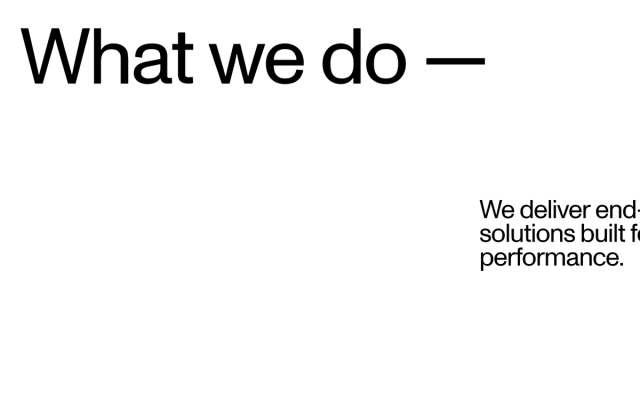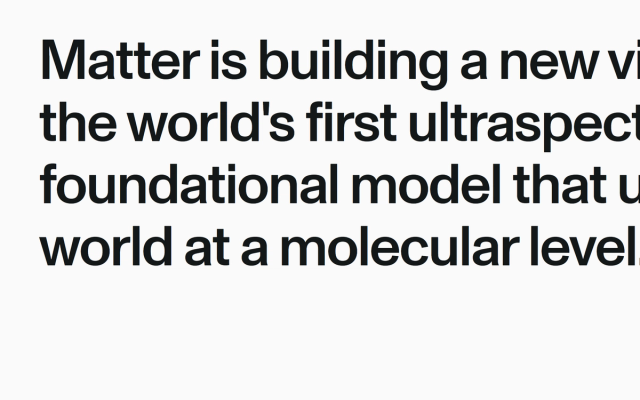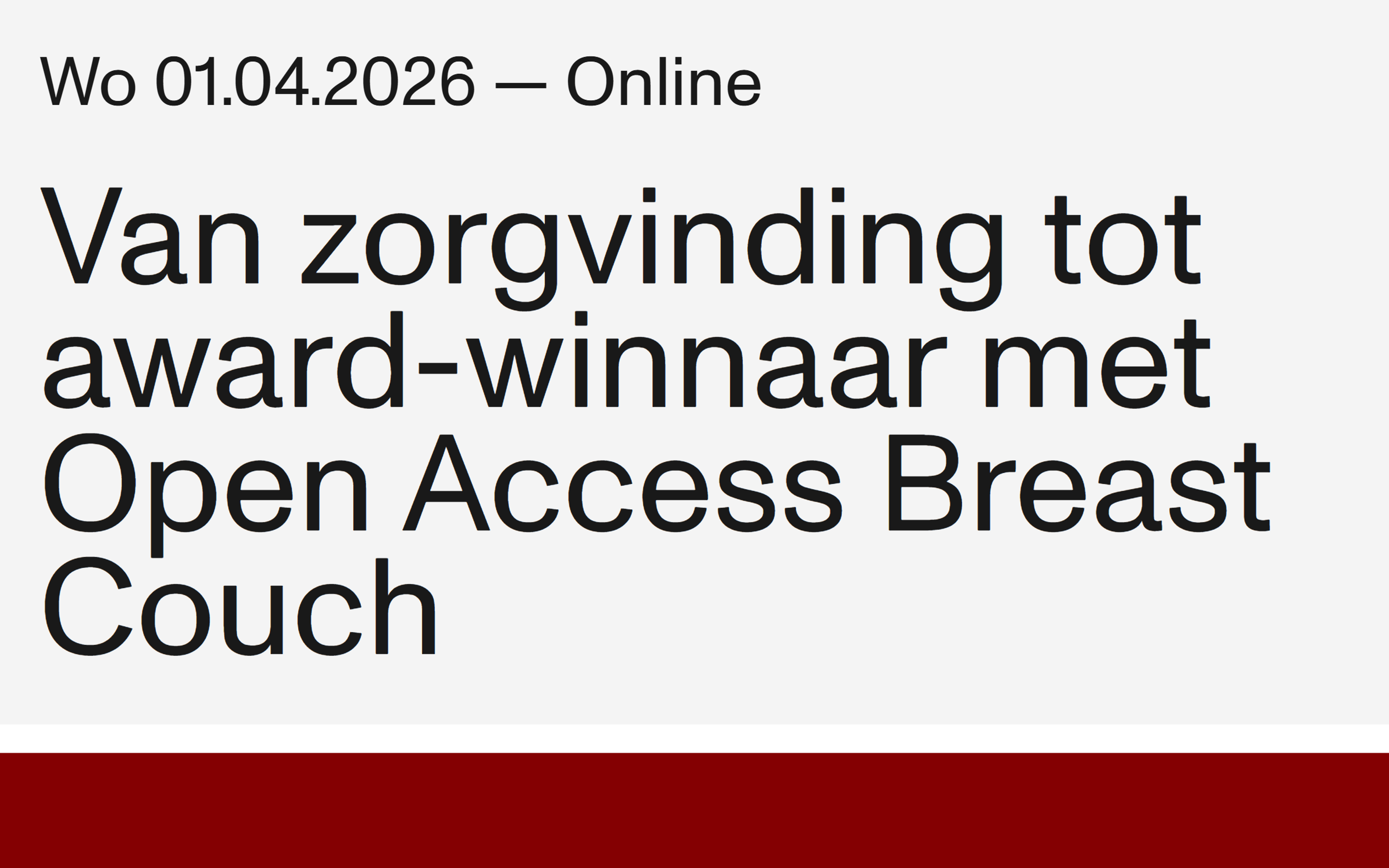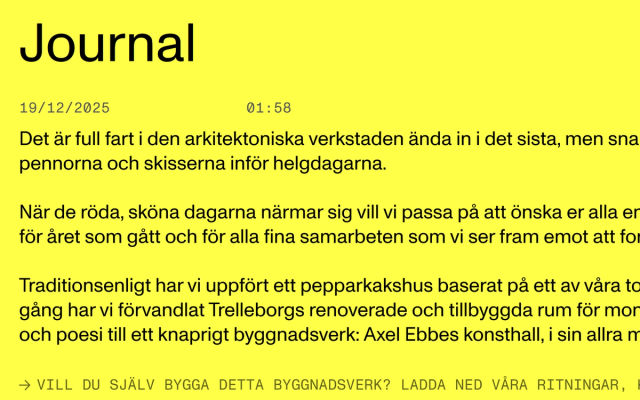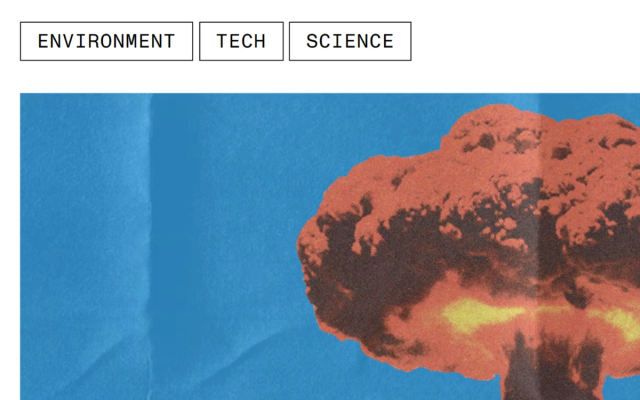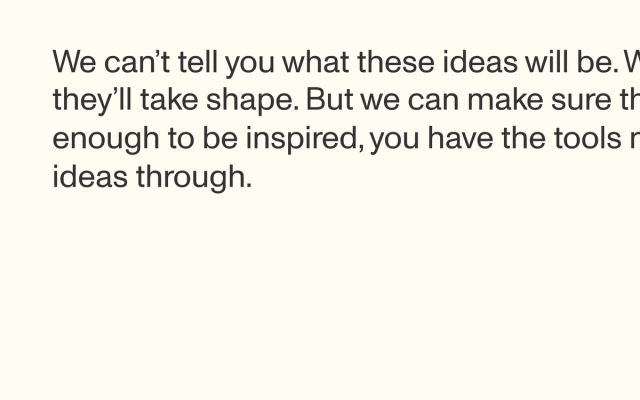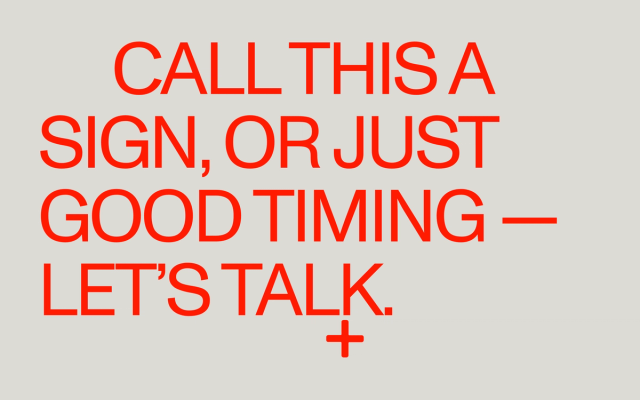
Kasper-Florio
Mono, Semimono, Normal
Swiss neutrality without the Helvetica baggage. Quiet and dependable at text sizes, then suddenly full of character once it's set big, which is why studios keep reaching for it whenever the brief says serious but not stiff.